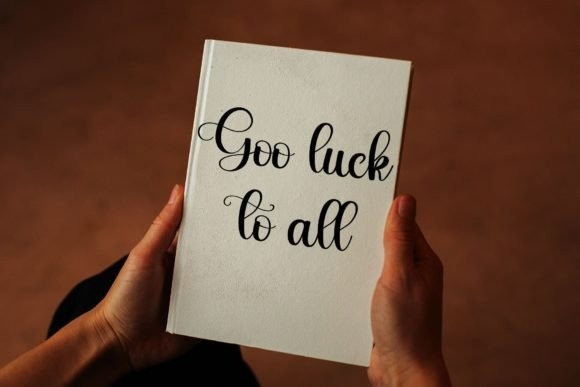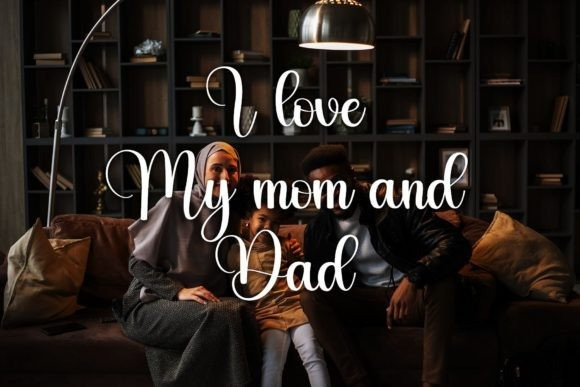
Chubby Font
Chubby Font is a sweet and beautiful handwritten font. Featuring characters that dance along the baseline, this font will add a luxury spark to any design project you wish to create!